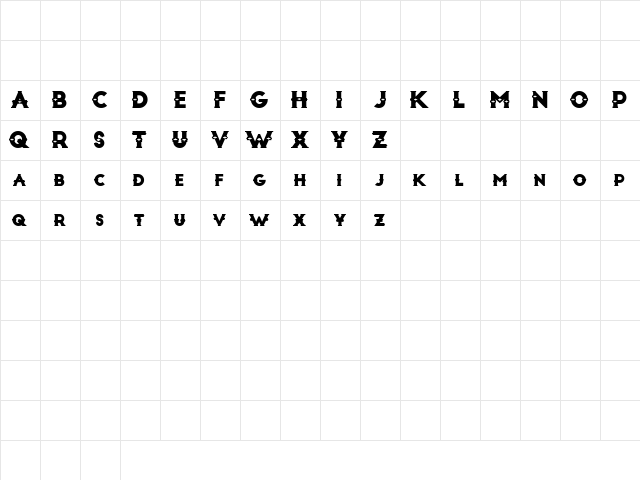
Artesania Display Regular
Design Context for Artesania Display Typeface
Artesania Display brings ornamental detail and strong personality to headlines and identities, where visual impact matters more than quiet functionality.
Font Pairing: Pair with a clean neutral sans-serif for body copy to let Artesania Display's character lead without overwhelming the composition.
Pro Tip: Treat Artesania Display as the centrepiece of your typographic hierarchy. One strong heading set in a decorative face can carry an entire layout.